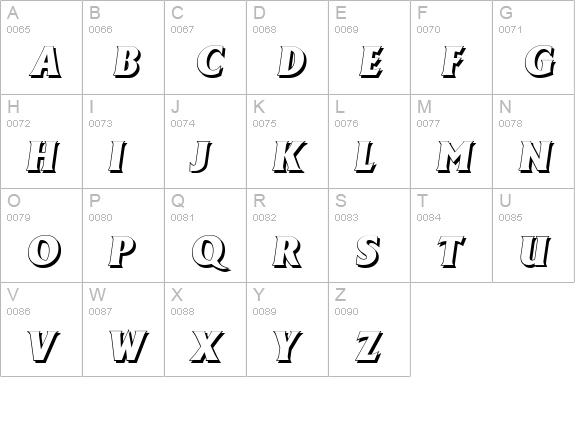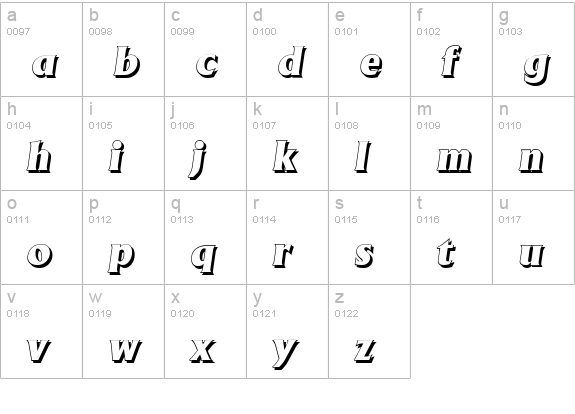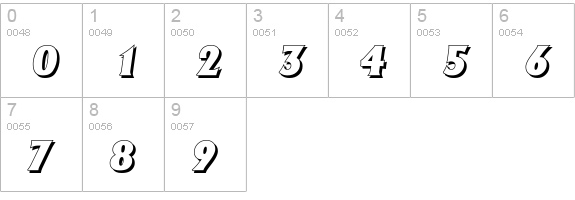
AdelonShadow-Heavy-Italic is a heavy, high-impact, italic variant in the AdelonShadow typeface family \xE2\x80\x94 well suited to high-impact headlines, posters, and display advertising.
AdelonShadow-Heavy-Italic is a bold and striking font that exudes a sense of power and sophistication. The italicized style adds a touch of elegance and flair to any design project. With its heavy weight and unique shadow effect, this font commands attention and makes a bold statement. Whether you're working on a logo, poster, or website design, AdelonShadow-Heavy-Italic is sure to make a lasting impression. The versatility of this font makes it suitable for a wide range of applications, from branding to editorial design. Best of all, AdelonShadow-Heavy-Italic is available for free download at FontsMarket.com. Now you can add this eye-catching font to your collection without any cost. Don't miss out on the opportunity to enhance your projects with this striking typeface. Download AdelonShadow-Heavy-Italic today and take your designs to the next level!